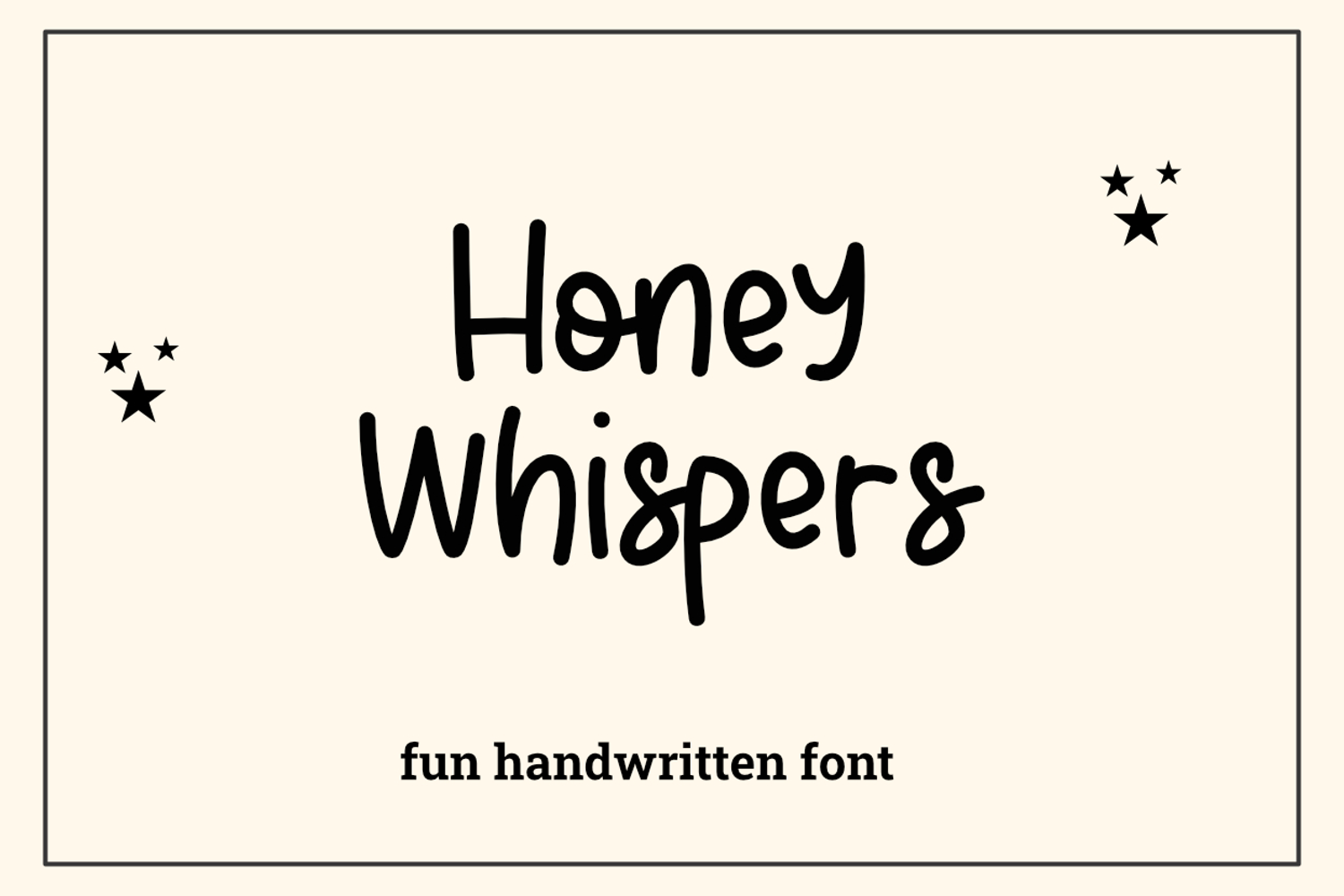
Honey Whispers
Honey Whispers  is a fun handwritten font!
This font is perfect for craft projects, shirts, mugs, teachers, doormats, stickers and more!